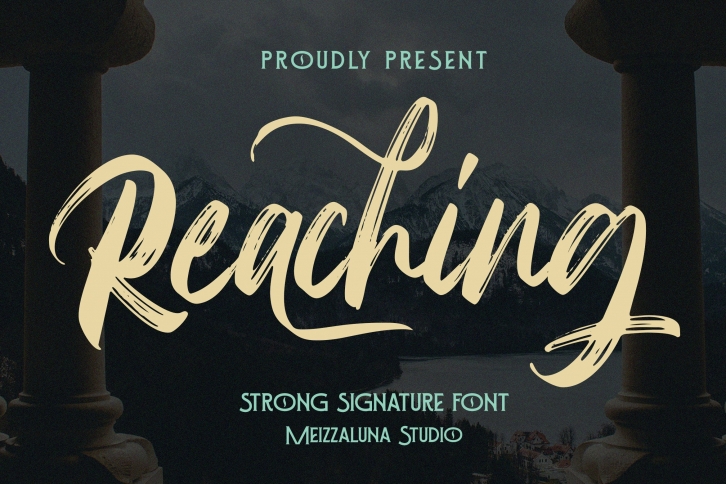
Reaching cute swash calligraphy font with smooth curves. Use it for all of your hand lettering projects like invitations, greeting cards, promotional materials, websites, and branding that need that hand-brushed lettering vibe.